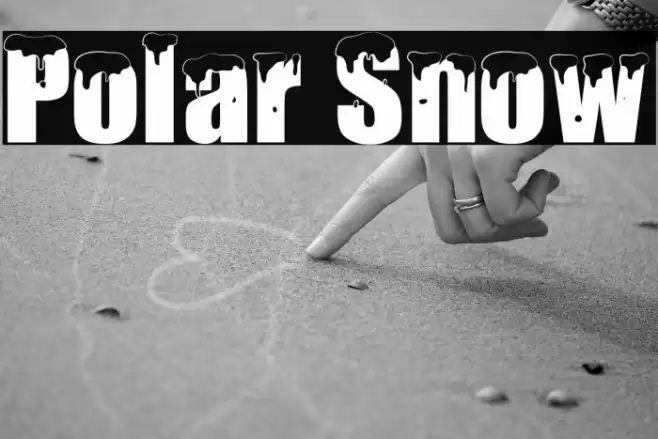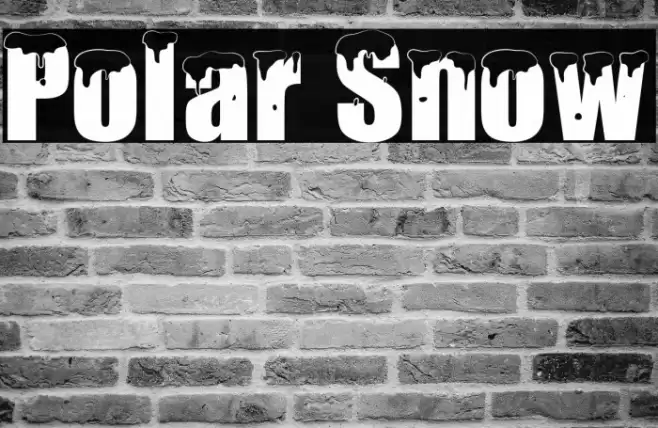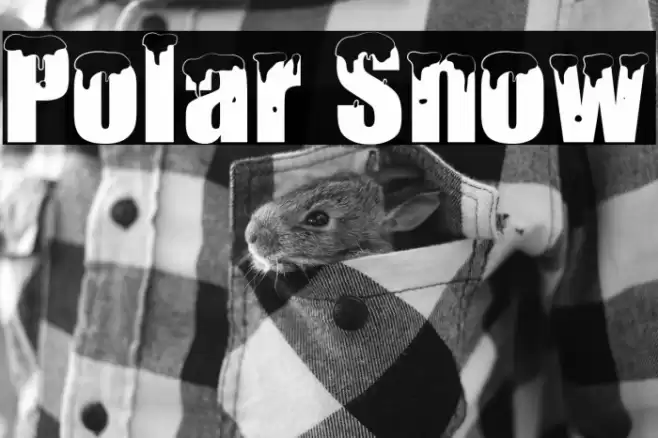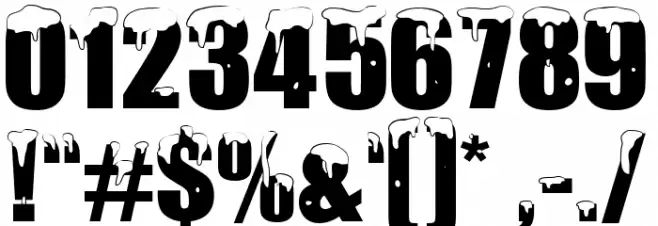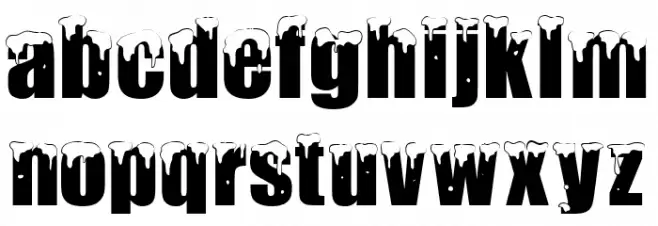
Polar Snow Font
Polar Snow Description
This font features a playful and decorative style with a winter theme. Each character is adorned with snow-like accents on the top, giving it a frosty and festive appearance. The bold and thick strokes provide a strong visual impact, making it ideal for eye-catching designs. The characters are evenly spaced, ensuring readability despite the decorative elements. This font is perfect for holiday-themed projects, winter promotions, or any design that requires a touch of seasonal charm.
A bold, decorative font with snow accents, perfect for winter themes from Uncategorized fonts.
- Proposed Projects: Ideal for holiday cards, winter event posters, festive banners, and seasonal advertisements.